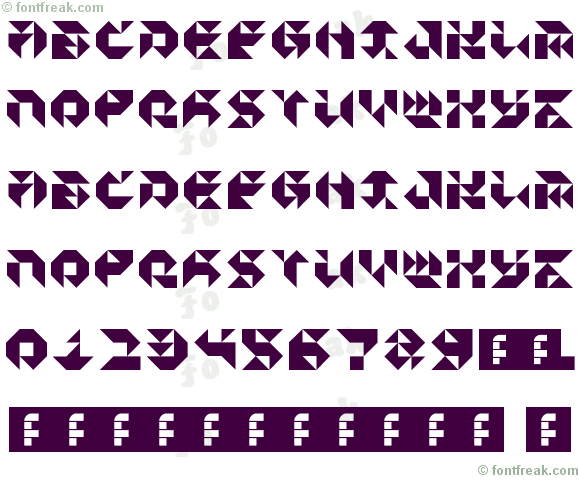
Particulator III Regular
About Particulator III Regular
Particulator III Regular, designed by Andrew McCluskey in 2013, is a striking display font that captures attention with its unique visual flair. This font falls into the decorative category, showcasing an innovative design that combines geometric shapes with sharp angles, giving it a modern yet edgy appearance. The stroke weight is consistently bold, creating a strong visual presence, while the contrast between the thick and thin elements adds depth and interest. The spacing is deliberate, allowing each character to breathe and making the overall design cohesive and engaging.
This font is ideal for a variety of creative uses. It works exceptionally well in branding projects, particularly for tech startups or modern apparel lines looking to establish a bold identity. Additionally, its distinctive style makes it perfect for event posters, especially those aimed at younger audiences or music festivals, where making a statement is essential. Particulator III Regular also shines in product packaging, particularly for niche products that require a unique touch. Furthermore, it can be effectively utilized in social media graphics, helping content creators stand out in a crowded digital space.
The target audience for Particulator III Regular includes graphic designers seeking a standout typeface for their projects, small business owners aiming to create memorable branding, and content creators in need of eye-catching typography for their online presence.
What sets the Particulator III Regular font apart is its ability to blend creativity with versatility, making it suitable for various applications while maintaining a distinct character. Its free availability adds to its appeal, allowing designers and creators to access a high-quality font without any financial barriers. For those interested in enhancing their projects, the Particulator III Regular font free download is a must-try.